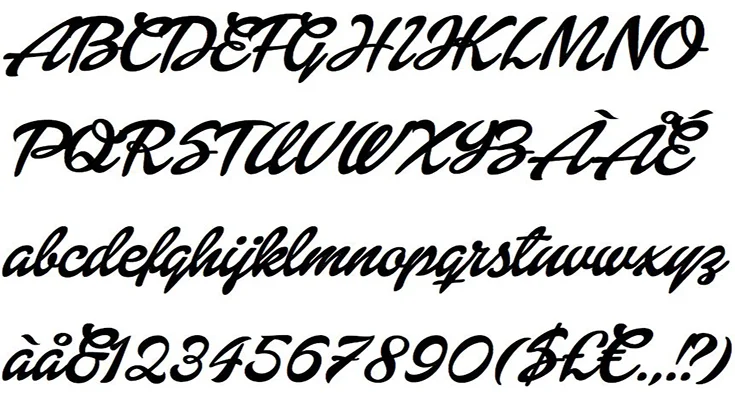
Barbie Font is a popular typeface inspired by the iconic Barbie doll brand. It features a playful and elegant design that captures the spirit of the doll’s signature style.
Barbie is one of the most popular toys for children today. With its eye-catching logo, it’s no wonder that many people are curious about the font used in the logo.
The font is often used in various design applications, including advertising, branding, and packaging. It’s characterized by its bold, curvy lines and cheerful, feminine aesthetic.
The typeface that resembles the Barbie logo is Dollie Script which is a unique typeface with 359 characters. This elegant script font was designed by Måns Grebäck.
The Barbie Font is a versatile and eye-catching typeface that can add a unique flair to any project.
It’s a great choice for projects aimed at a younger, female demographic or for those looking to add a touch of fun and whimsy to their designs.